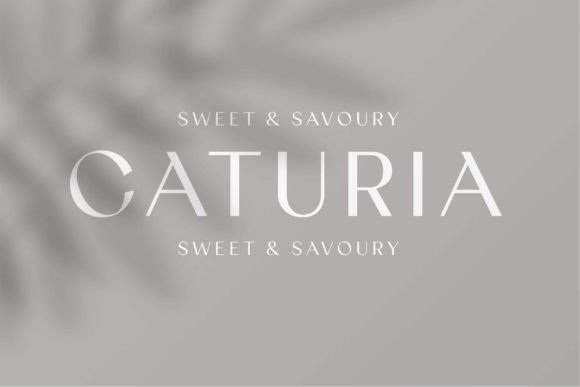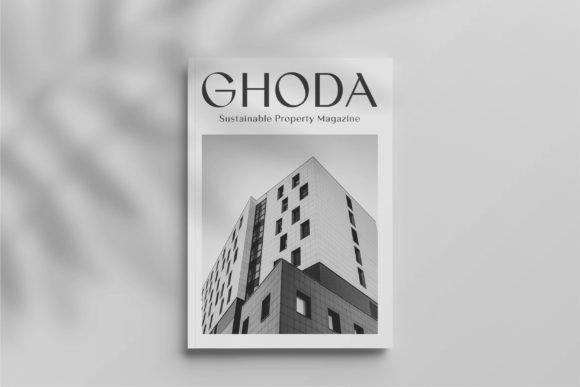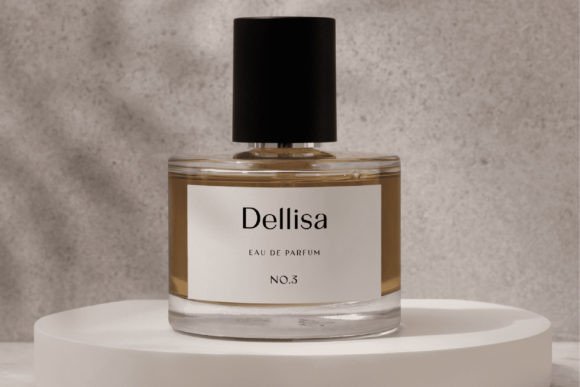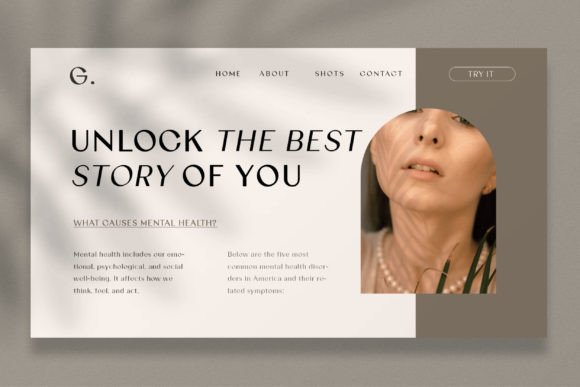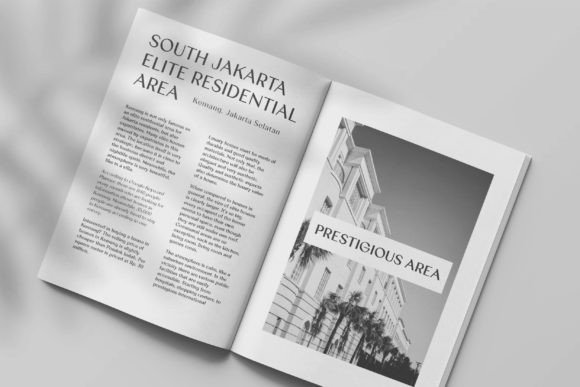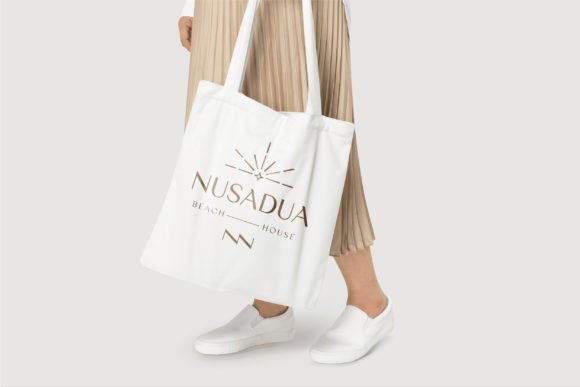
Gracela Font: Elevate Your Designs with Sophistication and Elegance
In the world of typography, fonts play a crucial role in conveying the tone and personality of a design. For those seeking a sophisticated and charming sans serif font with a fashionable touch, Gracela Font is an exceptional choice. Specifically designed for luxury, elegant, and feminine projects, Gracela is perfectly suited for creating modern, chic designs that exude refinement and poise.
What Makes Gracela Font Stand Out?
Gracela Font boasts a unique blend of elegance and modernity, making it an ideal choice for designers and crafters looking to add a touch of sophistication to their work. Its sans serif design ensures a clean and minimalist aesthetic, while its fashionable touch injects a sense of style and glamour. Whether you’re working on a luxury brand identity, a high-end product packaging, or a stylish website design, Gracela Font is sure to impress.
Key Features of Gracela Font
- Sophisticated and Charming: Gracela Font exudes a sense of refinement and elegance, making it perfect for luxury and high-end projects.
- Modern and Chic: Its sans serif design and fashionable touch ensure a modern and stylish aesthetic.
- Feminine Touch: Gracela Font is specially designed to add a touch of femininity to your designs, making it ideal for projects that require a delicate and elegant approach.
- Versatile: Gracela Font can be used for a wide range of design applications, from branding and packaging to website design and advertising.
Use Cases for Gracela Font
Gracela Font is a versatile typeface that can be used in various design projects. Here are some use cases where Gracela Font shines:
- Luxury Brand Identity: Create a sophisticated brand identity for high-end luxury brands, including logos, business cards, and letterheads.
- Fashion and Beauty: Use Gracela Font to create stylish and elegant designs for fashion and beauty brands, including packaging, advertising, and website design.
- Wedding and Event Design: Add a touch of elegance and sophistication to wedding and event designs, including invitations, programs, and decorations.
- Product Packaging: Use Gracela Font to create stylish and modern product packaging for luxury products, including cosmetics, jewelry, and high-end electronics.
Tips for Using Gracela Font Effectively
To get the most out of Gracela Font, here are some tips to keep in mind:
- Pair with Neutral Colors: Pair Gracela Font with neutral colors like black, white, and gray to create a sophisticated and elegant aesthetic.
- Experiment with Font Sizes: Experiment with different font sizes to create visual hierarchy and add emphasis to specific design elements.
- Add Texture and Patterns: Add texture and patterns to your design to create depth and interest, and to balance out the clean and minimalist aesthetic of Gracela Font.
In conclusion, Gracela Font is a sophisticated and charming sans serif font that is perfectly suited for luxury, elegant, and feminine projects. Its modern and chic aesthetic, combined with its fashionable touch, makes it an ideal choice for designers and crafters looking to add a touch of sophistication to their work. With its versatility and range of use cases, Gracela Font is sure to become a go-to font for designers seeking to create modern, chic designs that exude refinement and poise.